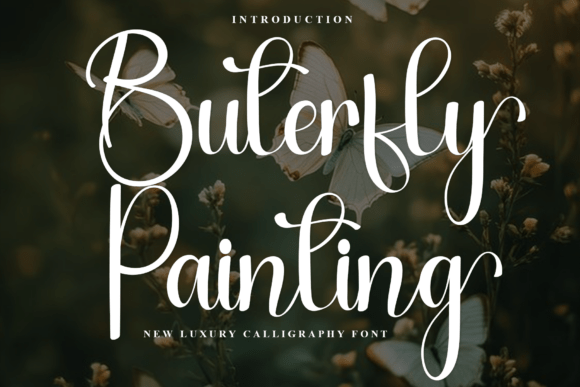
The Joy of Buterfly Painting Font: A Designer’s New Best Friend
I’ll never forget the time I was working on a whimsical craft project for a client, pouring my heart and soul into every detail, only to get stuck on one thing: the font. I wanted something that would capture the playful, carefree essence of the design, but everything I tried seemed either too stuffy or too over-the-top. That’s when I stumbled upon Buterfly Painting Font, and let me tell you, it was love at first sight! ✨
A Font that Feels like a Warm Hug
Buterfly Painting is a casual and creative font that exudes warmth and friendliness. Its round, playful strokes create a relaxed and approachable feel, perfect for personal projects, invitations, and social media graphics. The font’s charming, hand-drawn aesthetic adds a fun and unique touch to any design, making it an excellent choice for crafters, designers, and creative hobbyists alike.
What I Love About Buterfly Painting Font
• ✅ Easy to read and understand, even at smaller sizes
• ✨ Unique, hand-drawn aesthetic that adds a personal touch to designs
• 🎉 Equipped with standard PUA Encoded glyphs for use in various applications
• 👍 Highly versatile and adaptable to different design styles
While Buterfly Painting Font is an excellent choice for many design projects, it’s not without its quirks. For instance:
• ⚠️ Some users may find the font a bit too casual or playful for formal projects
• 🤔 Limited availability of certain special characters or diacritical marks
The Story Behind Buterfly Painting Font
Buterfly Painting Font was created with the intention of capturing the whimsical, creative spirit of art and design. The font’s designer wanted to create a typeface that would evoke feelings of warmth, friendliness, and approachability, perfect for personal projects and designs that require a touch of personality.
Q: Is Buterfly Painting Font suitable for body text?
A: While Buterfly Painting Font is a beautiful and legible font, it’s best suited for headlines, titles, and short paragraphs. For longer body text, you may want to consider a more traditional serif or sans-serif font.